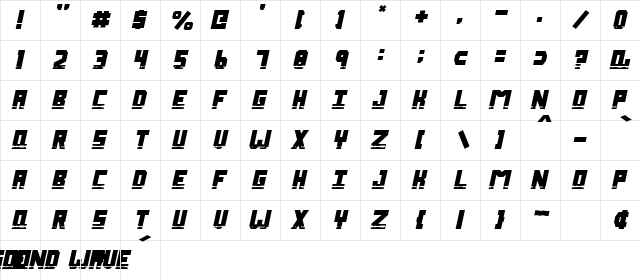
Sound Wave Italic Font Preview
Sound Wave Italic
Sound Wave Italic Font Details
| Designer | Joseph Dawson |
Design Context for Sound Wave Typeface
Sound Wave is a composed and adaptable typeface that performs quietly and consistently across a wide range of design contexts. The slanted form adds forward momentum and visual energy.